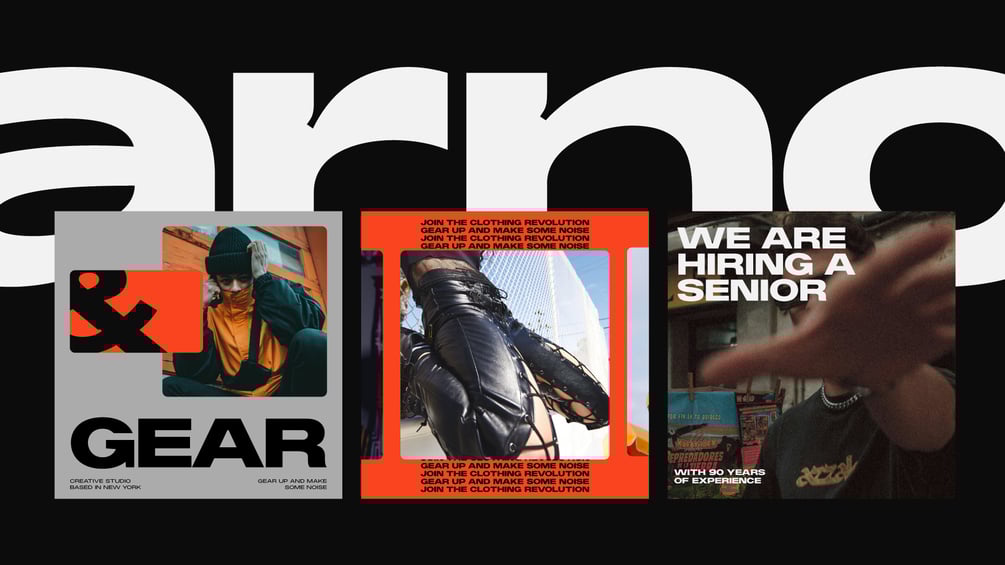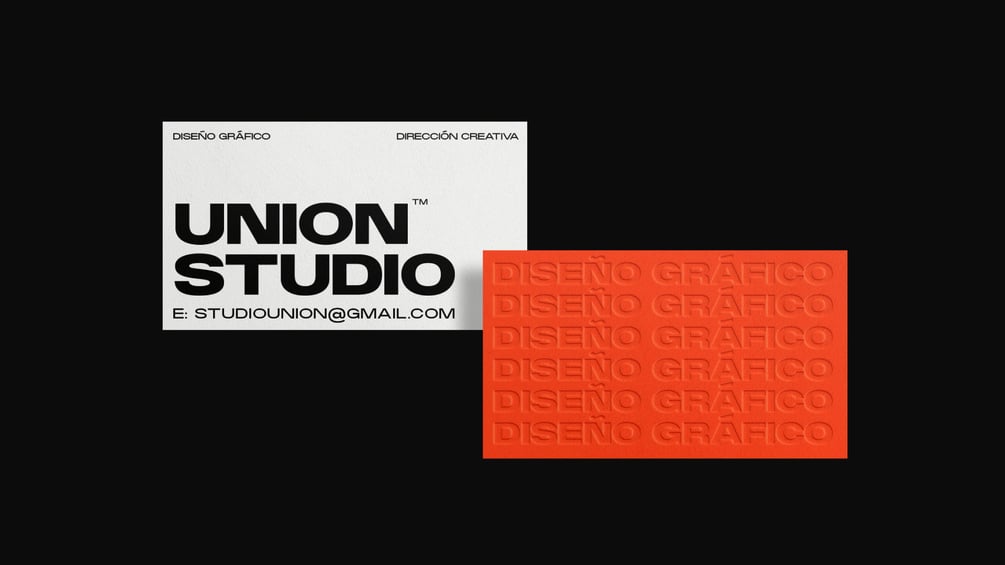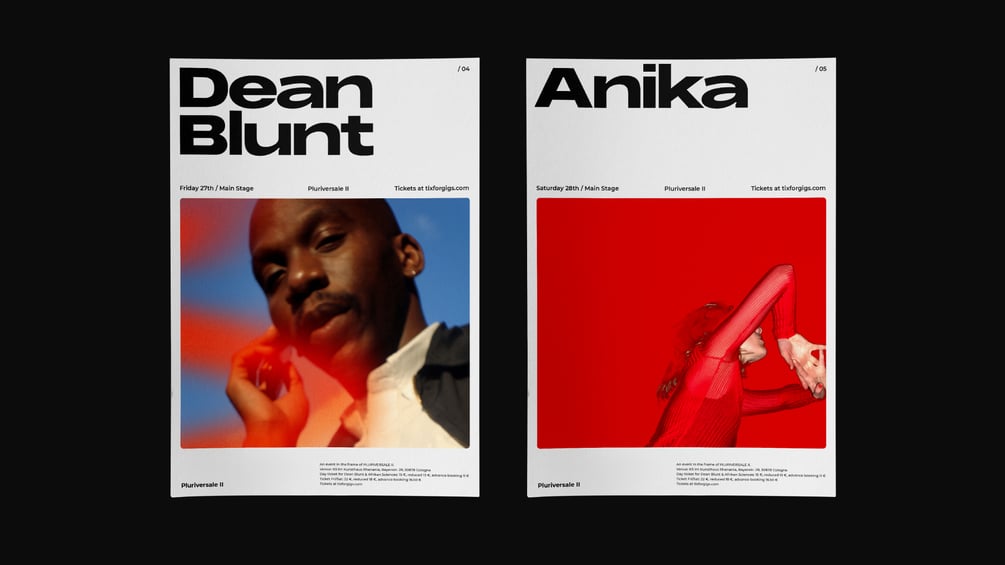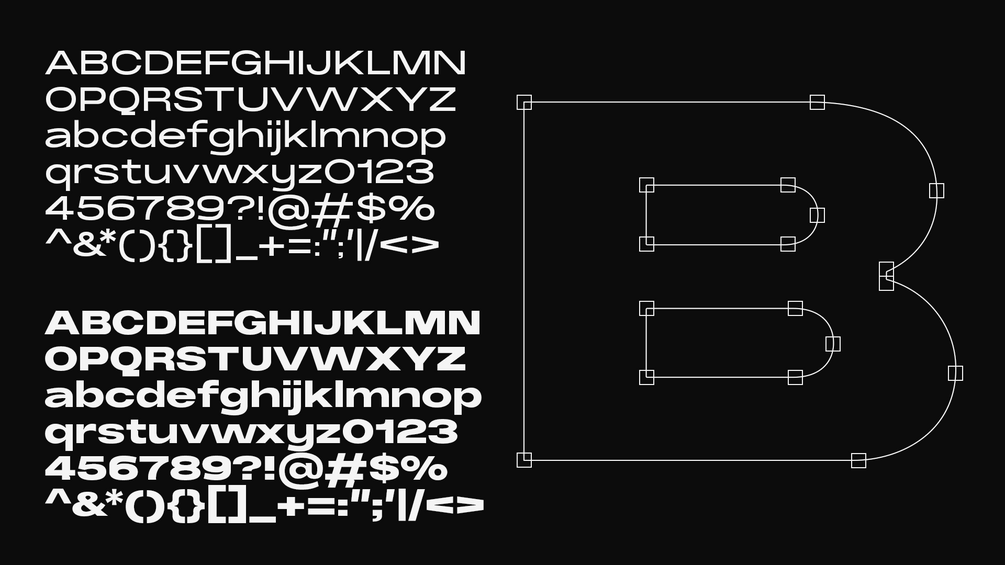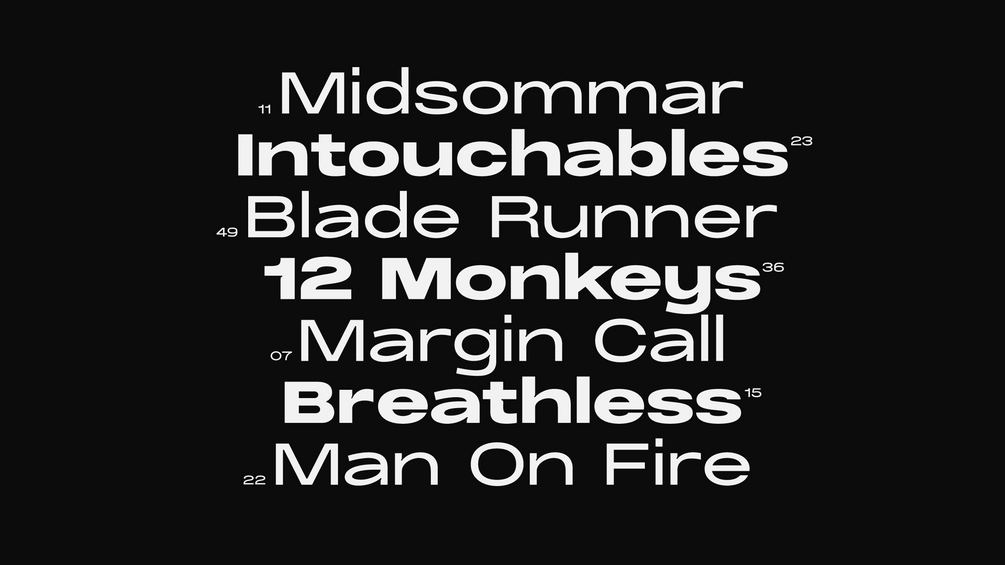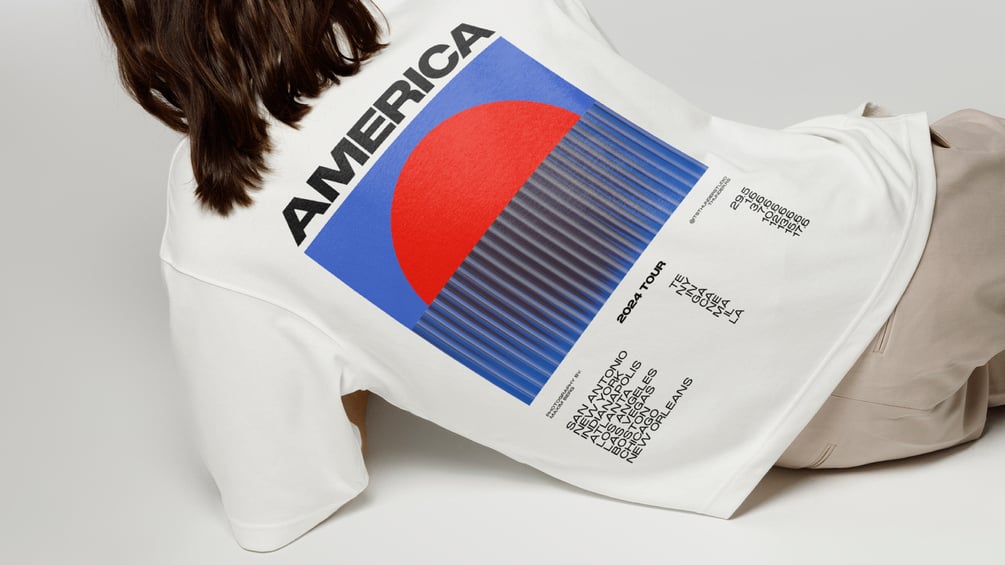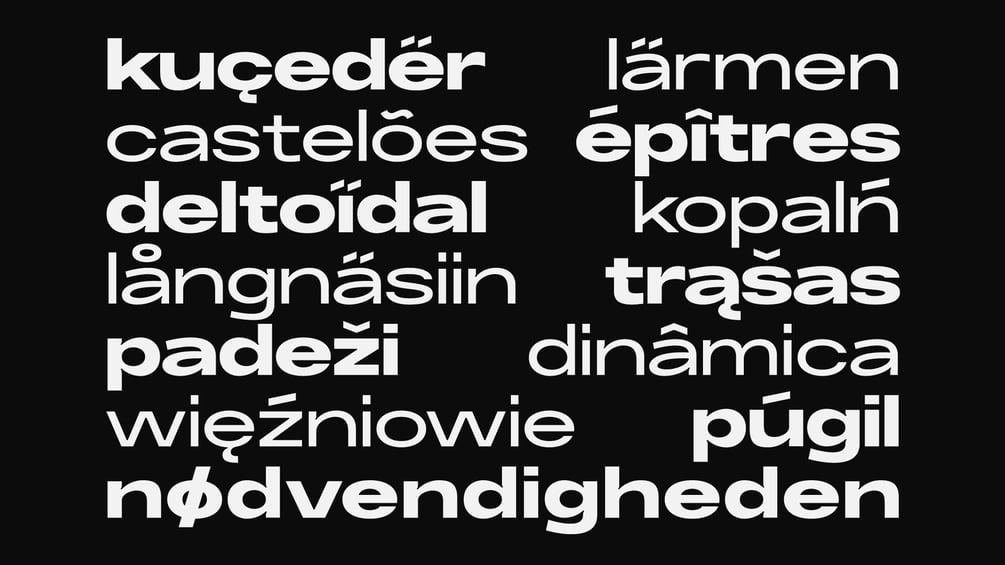
Alias - Regular & Bold
Alias is an extended typeface with a twist hidden in its lowercase inktraps.
Our inspiration comes from modern rap music and urban streetwear, which have strong roots in bold typography and vibrant colors.
Alias comes in 2 weights: Regular & Bold